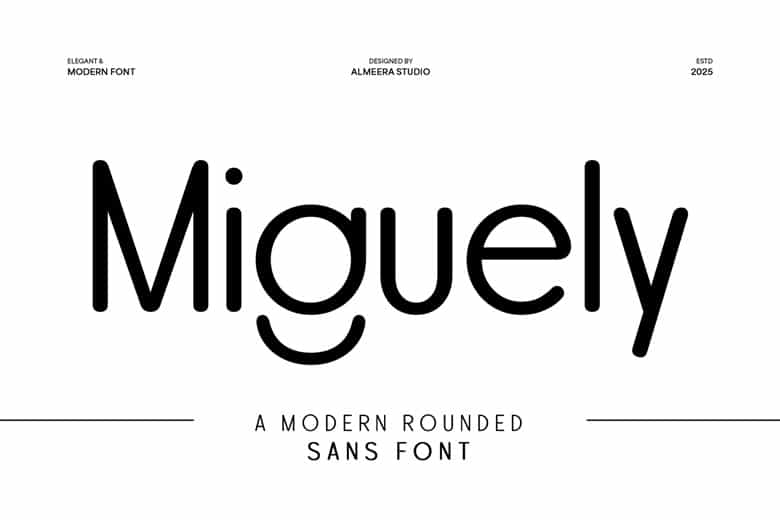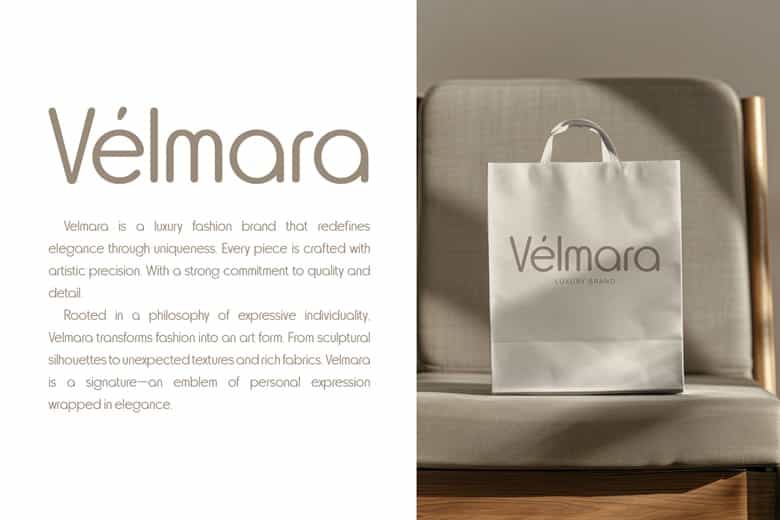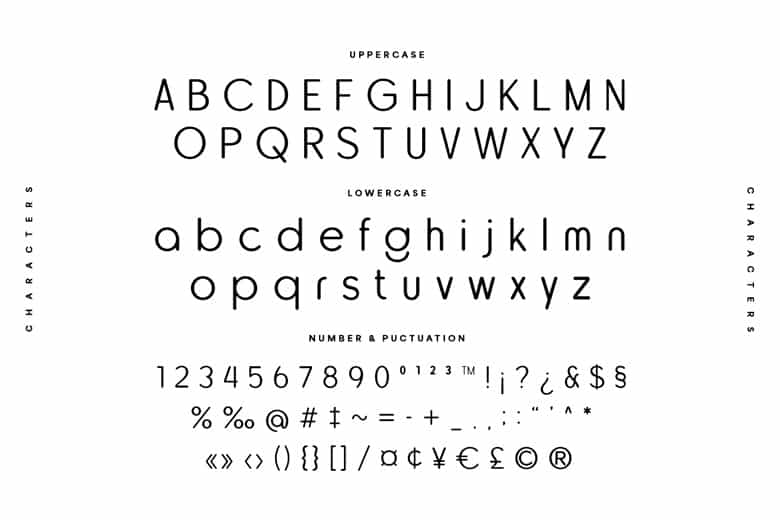
Miguely is a feminine and updated rounded sans font with an air of elegance with a welcoming and open look and feel. Miguely is great as branding, kids products, web, app, packaging, and cafe branding fonts as its annular curves are welcoming and warm to the eye. The typeface is elegant and very modern, with high readability and contemporary sense, and can be used in projects that need a gentle, clean and friendly touch.